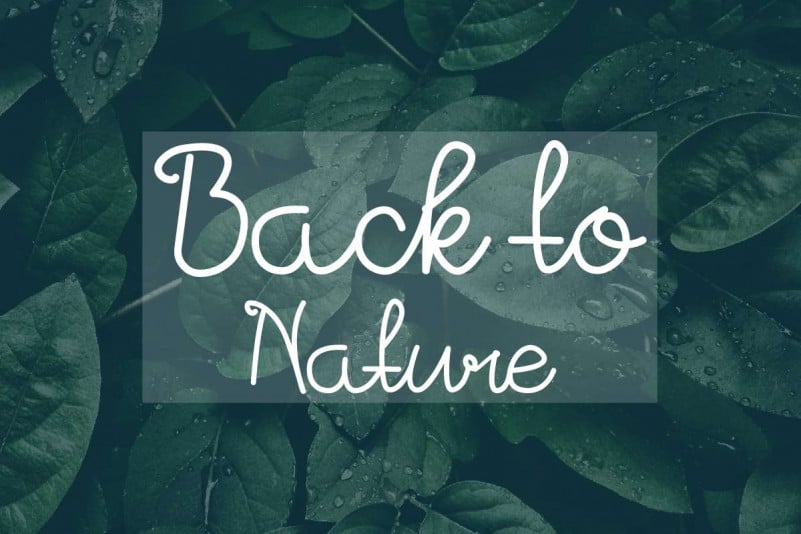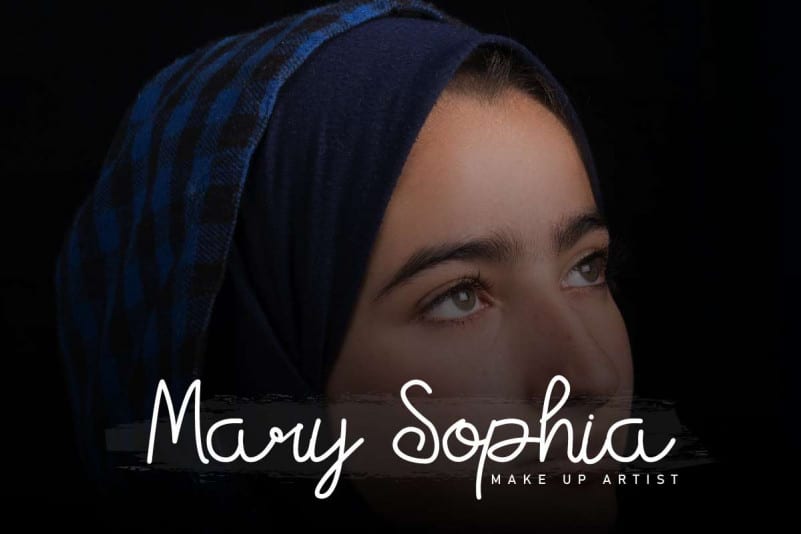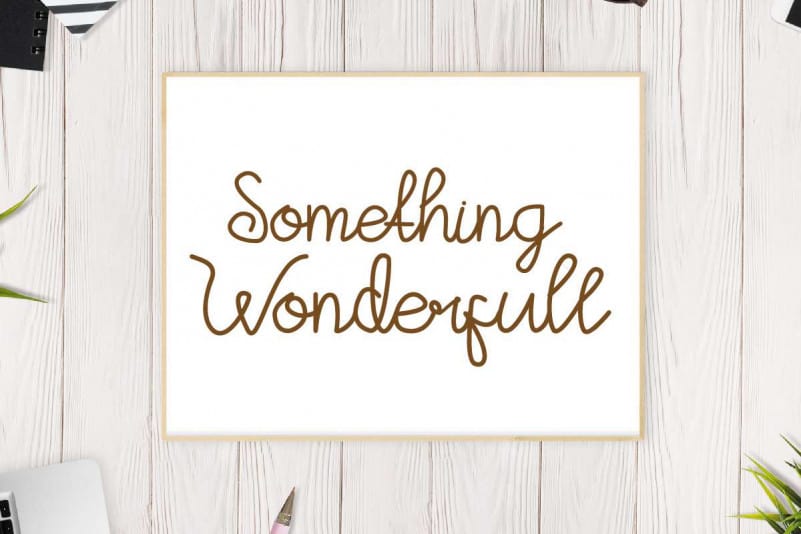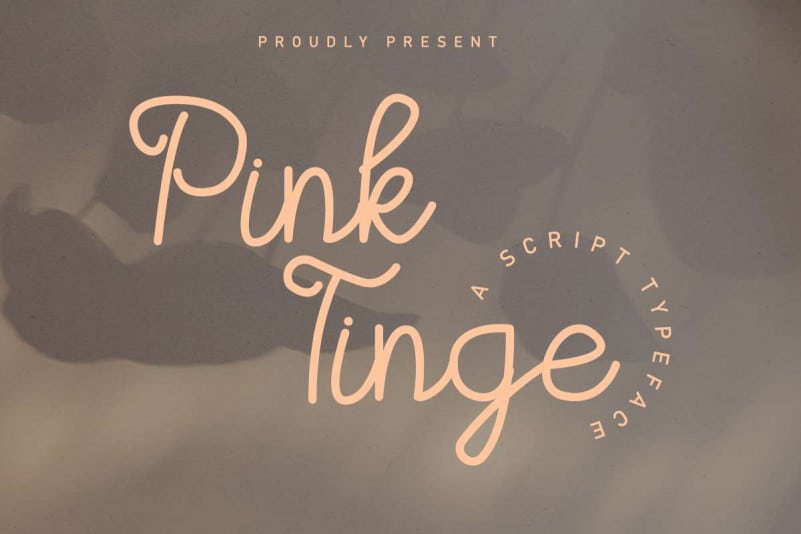
Pink Tinge Script Font
Pink Tinge Script Font is an exclusive font family with two different styles. This font has a great characters set, perfectly managed with well spaced and kerning. The theme style of this font will unique, vintage, stylish, sophisticated and rough brush calligraphic style.
Pink Tinge Script Font will be great for any projects including : branding, logo, stationery, business card, signage, flyer, brochure etc. Almost all industries will be match for this typeface: wedding, events, music, concert florist, gardening, makeup artist, travel, musician etc